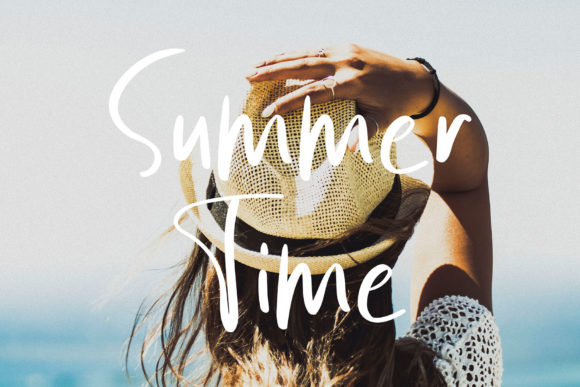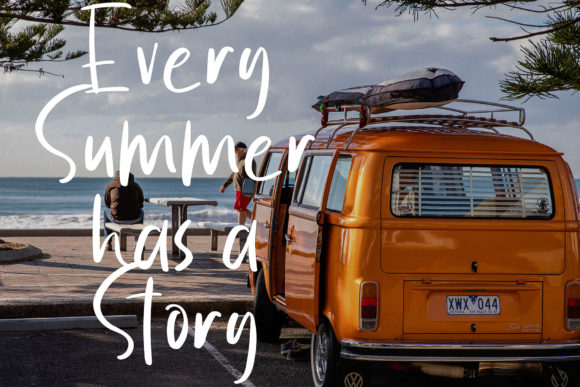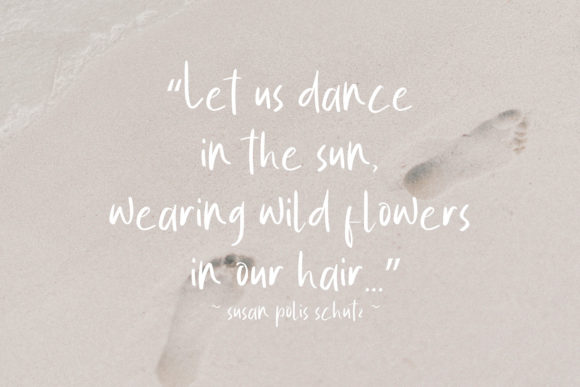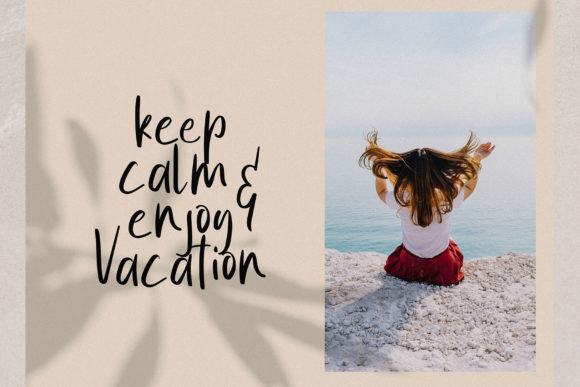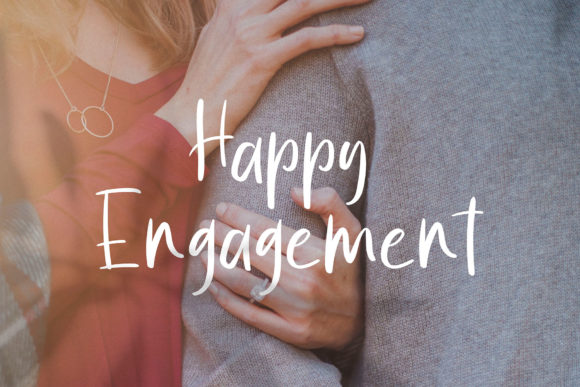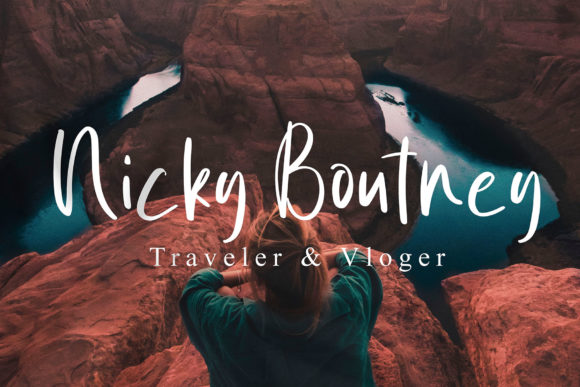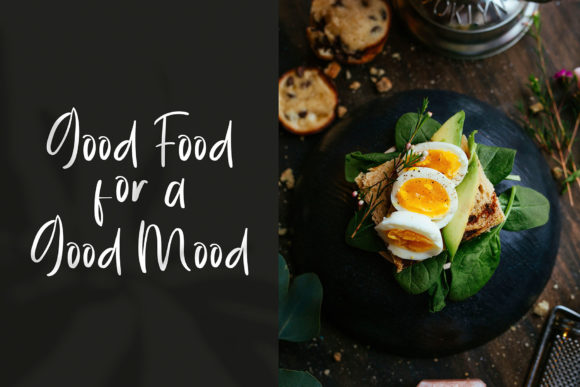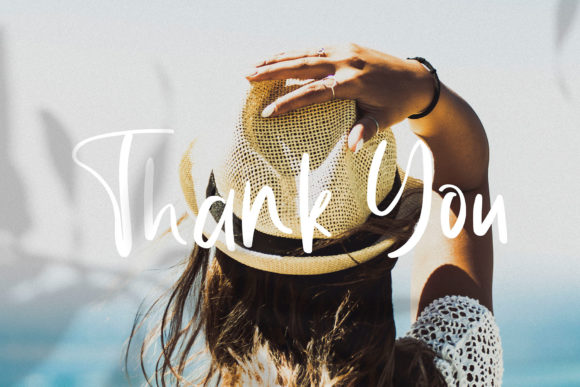
HomeScript FontsSummer Vibes Font Script Fonts Summer Vibes Font FacebookXPinterestWhatsApp Summer Vibes Font Poster 2 Summer Vibes Font Poster 3 Summer Vibes Font Poster 4 Summer Vibes Font Poster 5 Summer Vibes Font Poster 6 Summer Vibes Font Poster 7 Summer Vibes Font Poster 8 Summer Vibes Font Poster 9 About Summer Vibes Font Summer Vibes is a very cute and fun script that works best for any design project that celebrates summer! DOWNLOAD NOW People also explored Hello Summer Font This Way Font Interior Font Smartie Sweet Pancake Font Handmade Font Jesaya Darita Font Infirmly Indicator Font 323 0 TagsSummer Vibes Font Previous articleAngelica FontNext articleGalisha Font LEAVE A REPLY Cancel reply Comment: Please enter your comment! Name:* Please enter your name here Email:* You have entered an incorrect email address! Please enter your email address here Website: Save my name, email, and website in this browser for the next time I comment. Personal Use Free Open Store Personal Use Free Read more about this font Astercla Personal Use Free Read more about this font Alnair Star Personal Use Free Read more about this font Pompom Personal Use Free Read more about this font BLOG Transform Your Website: Elevate Your Typography with 7 Best Web Font Generators Are you ready to transform your website's typography from ordinary to extraordinary? Great! Today, we're diving into the world of web font generators, which... Modern Sans-Serif Fonts That Brands Love in 2025 Using Fonts in Digital Marketing: Tips to Strengthen Your Brand Identity Exploring Font Trends